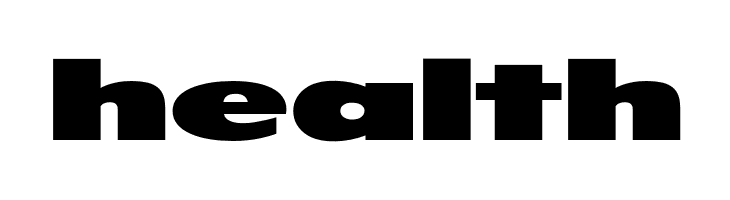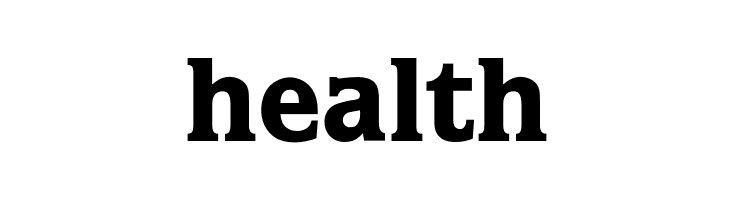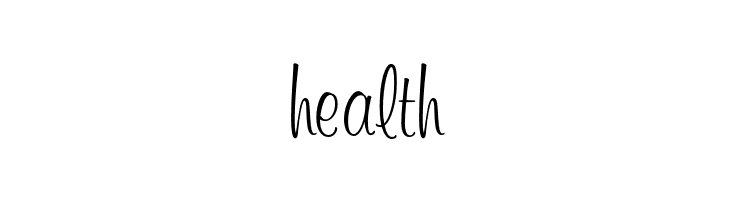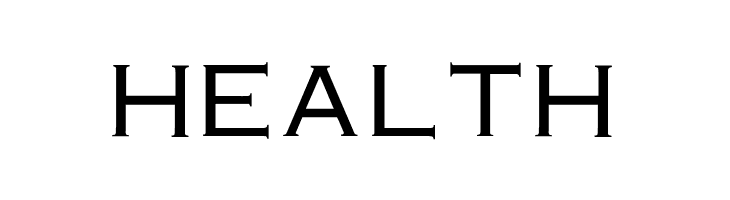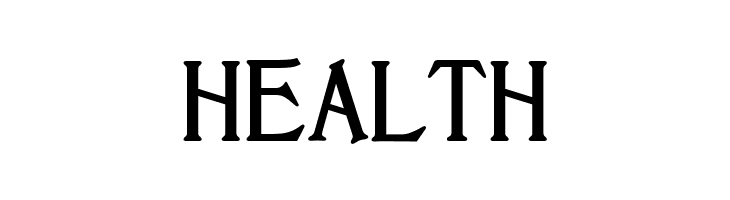
A bold, modern font with strong, impactful characters ideal for headlines.
An ornate, calligraphy-inspired font with sharp lines and elegant curves.
A bold serif font with strong, thick strokes and a modern twist.
A cursive font with elegant loops and swashes, perfect for sophisticated designs.
A bold, condensed font with high contrast and a modern style.
A classic serif font with sharp serifs and a traditional yet modern aesthetic.
A bold, classic serif font with high contrast and elegant serifs.
A clean and elegant font with a modern twist, featuring well-defined characters and slight contrast.
A refined and elegant font with clean lines and balanced proportions.
A bold, gothic-style serif font with sharp, angular serifs and a medieval flair.